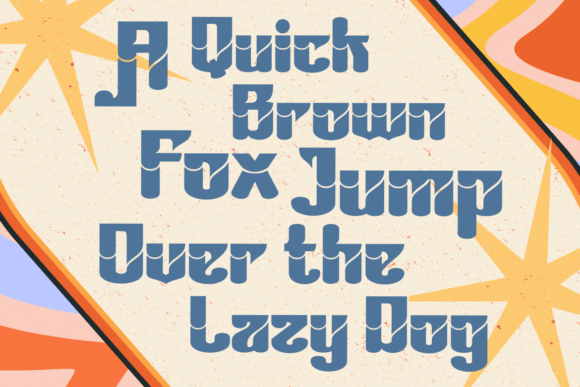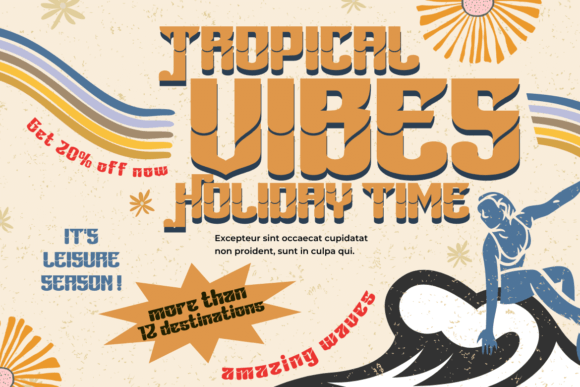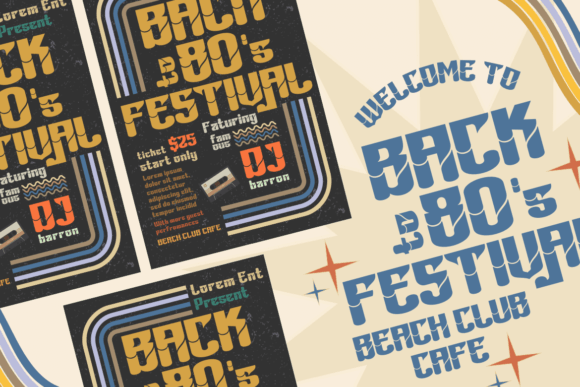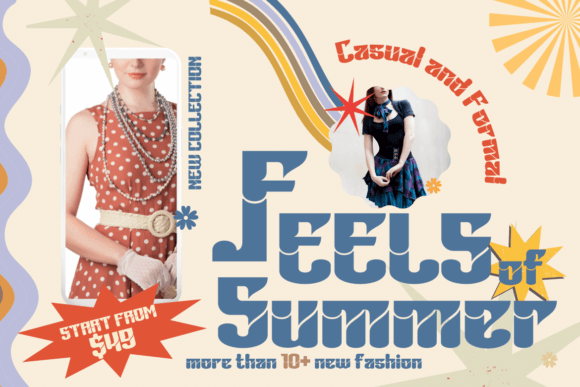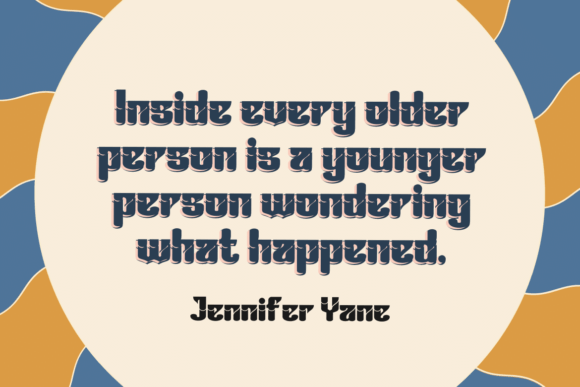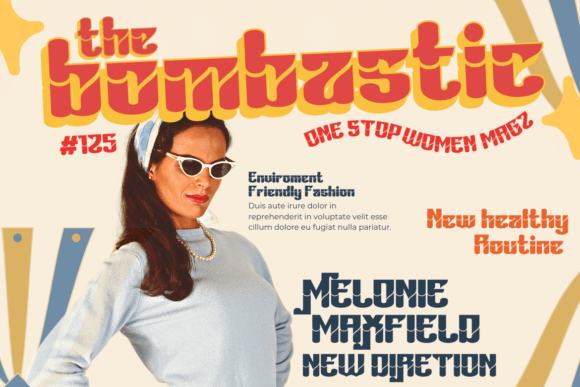
Take a Trip Down Memory Lane with the Bahiyoh Retro Font
Are you a designer or crafter looking to add a touch of nostalgia to your projects? Look no further than the Bahiyoh retro font. This vintage-inspired font combines classic appeal with modern design sensibilities to create a unique and professional look that’s sure to evoke memories of the past.
What is the Bahiyoh Font?
The Bahiyoh font is a carefully crafted typeface that draws inspiration from classic retro fonts, but with a modern twist. Its distinctive lettering style and charming aesthetic make it perfect for a wide range of design projects, from branding and advertising to crafting and DIY projects.
Key Features of the Bahiyoh Font
- Unique and Professional Look: The Bahiyoh font boasts a distinctive and professional look that’s sure to make your designs stand out.
- Vintage-Inspired: With its classic appeal and retro charm, this font is perfect for designers and crafters looking to add a touch of nostalgia to their projects.
- Modern Design Sensibilities: The Bahiyoh font combines vintage inspiration with modern design sensibilities, making it perfect for a wide range of design projects.
Uses for the Bahiyoh Font
The Bahiyoh font is versatile and can be used in a wide range of design projects, including:
- Branding and Advertising: Use the Bahiyoh font to create eye-catching logos, advertisements, and marketing materials that are sure to grab attention.
- Crafting and DIY Projects: Add a touch of nostalgia to your crafting and DIY projects, such as handmade cards, scrapbooking, and other paper crafts.
- Web Design: Use the Bahiyoh font to create unique and engaging web designs that are sure to stand out.
- Social Media Graphics: Create eye-catching social media graphics, such as Facebook posts, Instagram stories, and Twitter headers, using the Bahiyoh font.
Tips for Using the Bahiyoh Font
Here are some tips for getting the most out of the Bahiyoh font:
- Pair with Modern Fonts: Pair the Bahiyoh font with modern fonts to create a unique and interesting contrast.
- Use in Combination with Images: Use the Bahiyoh font in combination with images to create eye-catching and engaging designs.
The Bahiyoh retro font is a unique and professional typeface that’s perfect for designers and crafters looking to add a touch of nostalgia to their projects. With its classic appeal and modern design sensibilities, this font is sure to evoke memories of the past while still looking fresh and modern. So why not take a trip down memory lane and try out the Bahiyoh font in your next design project?
Whether you’re a seasoned designer or a crafty DIY enthusiast, the Bahiyoh font is sure to inspire your creativity and help you create unique and engaging designs that stand out from the crowd.